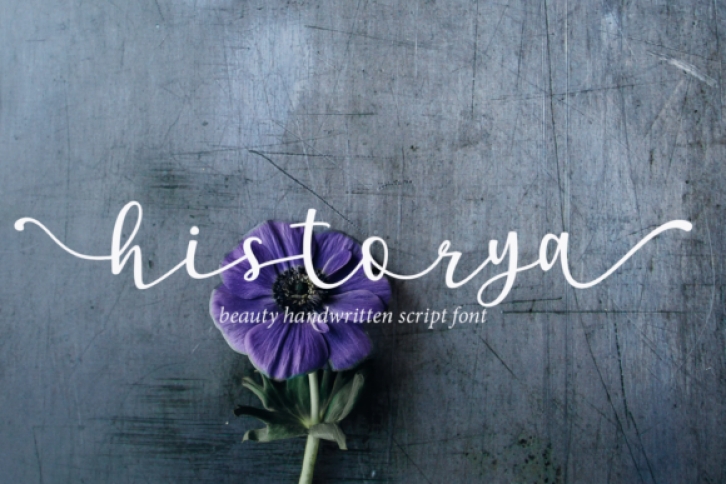
Historya is a delicate, elegant and flowing handwritten font. It has beautiful and well balanced characters and as a result, it matches a wide pool of designs. Add it to your most creative ideas and notice how it makes them come alive!